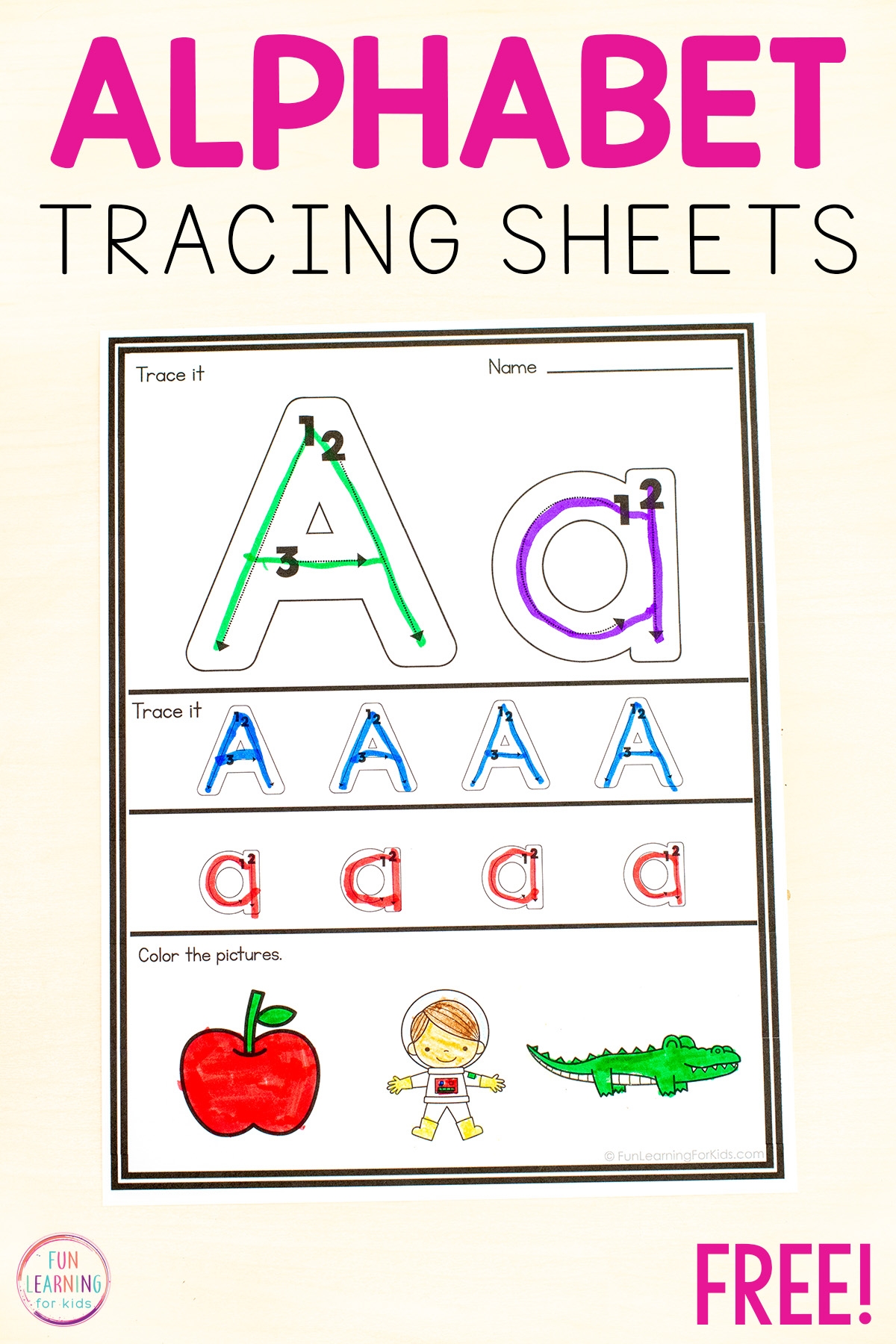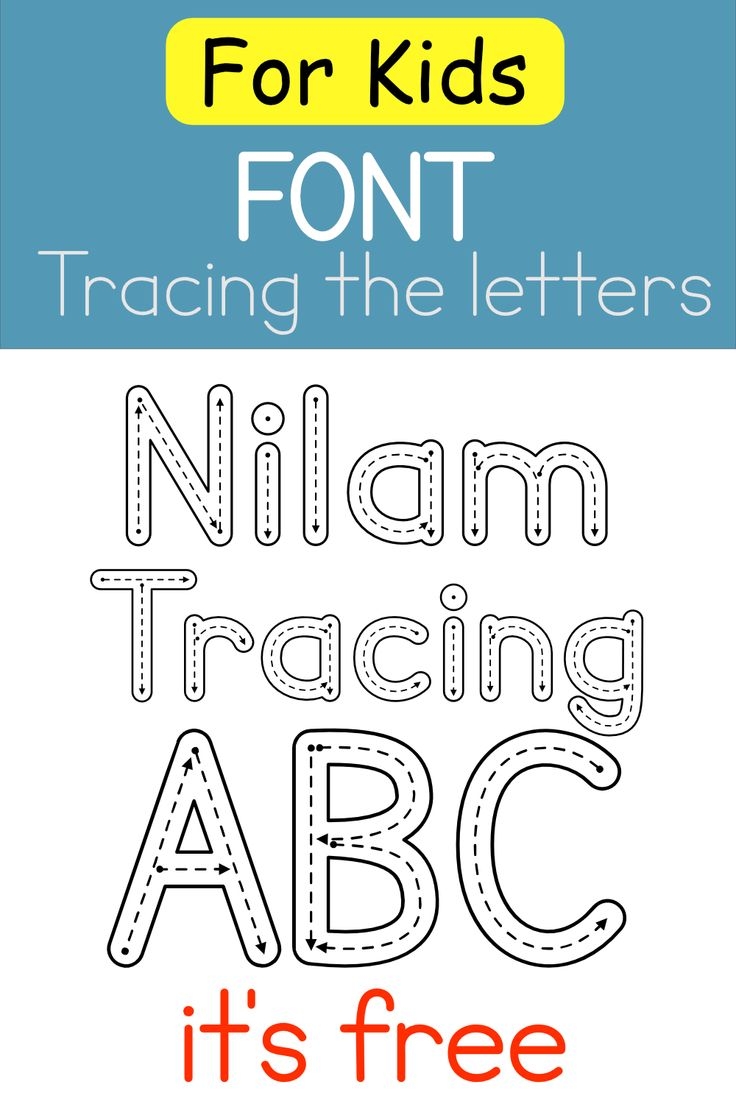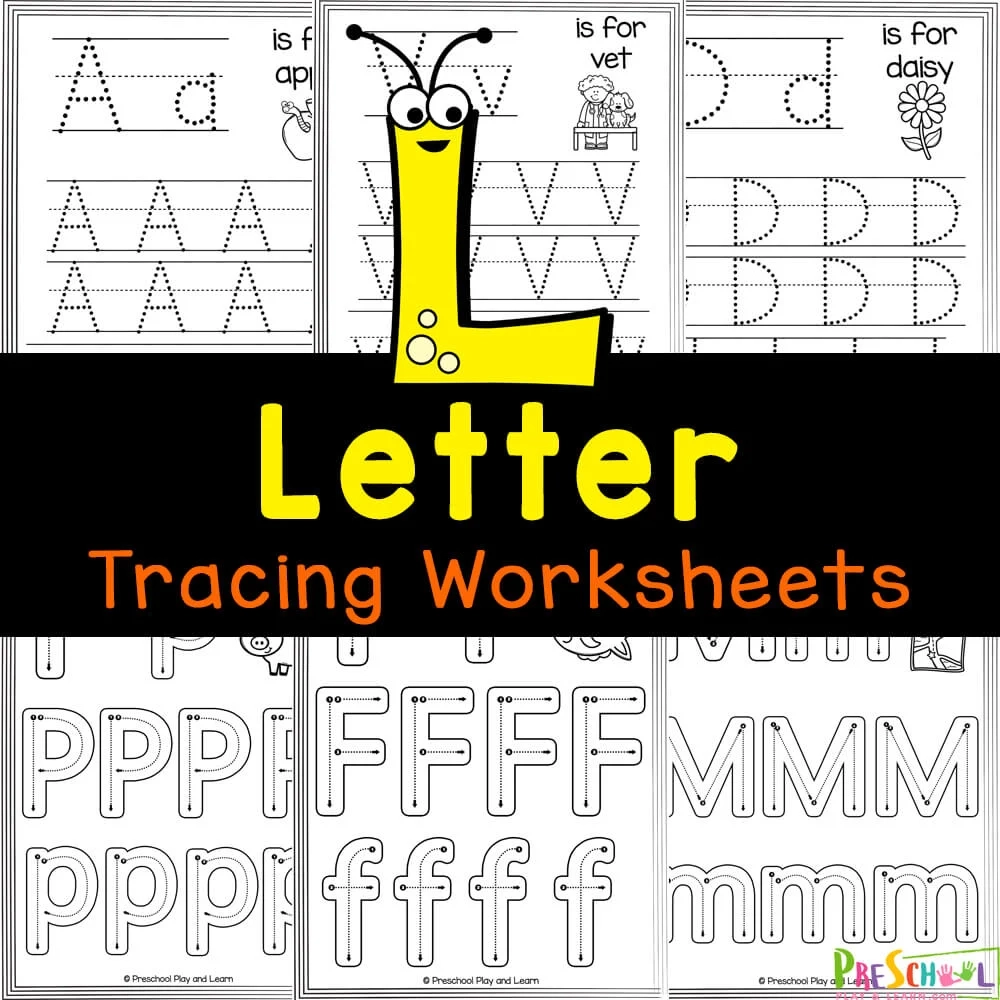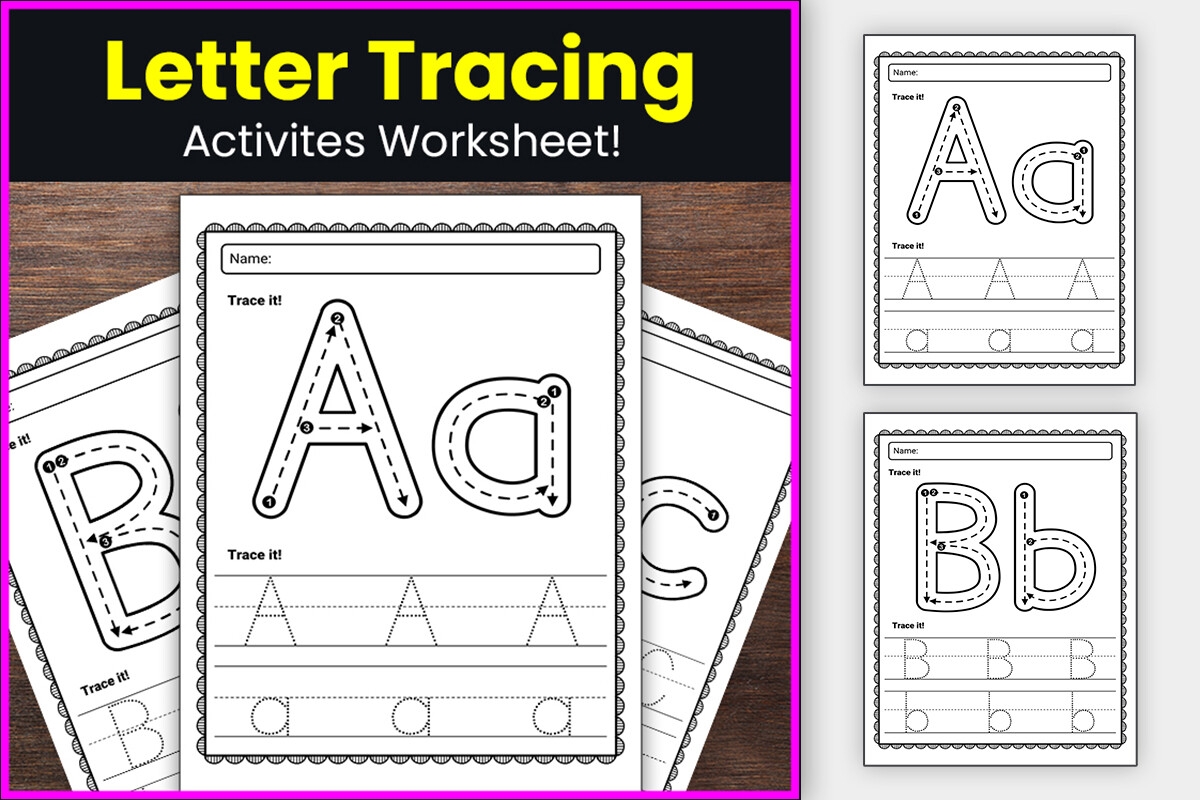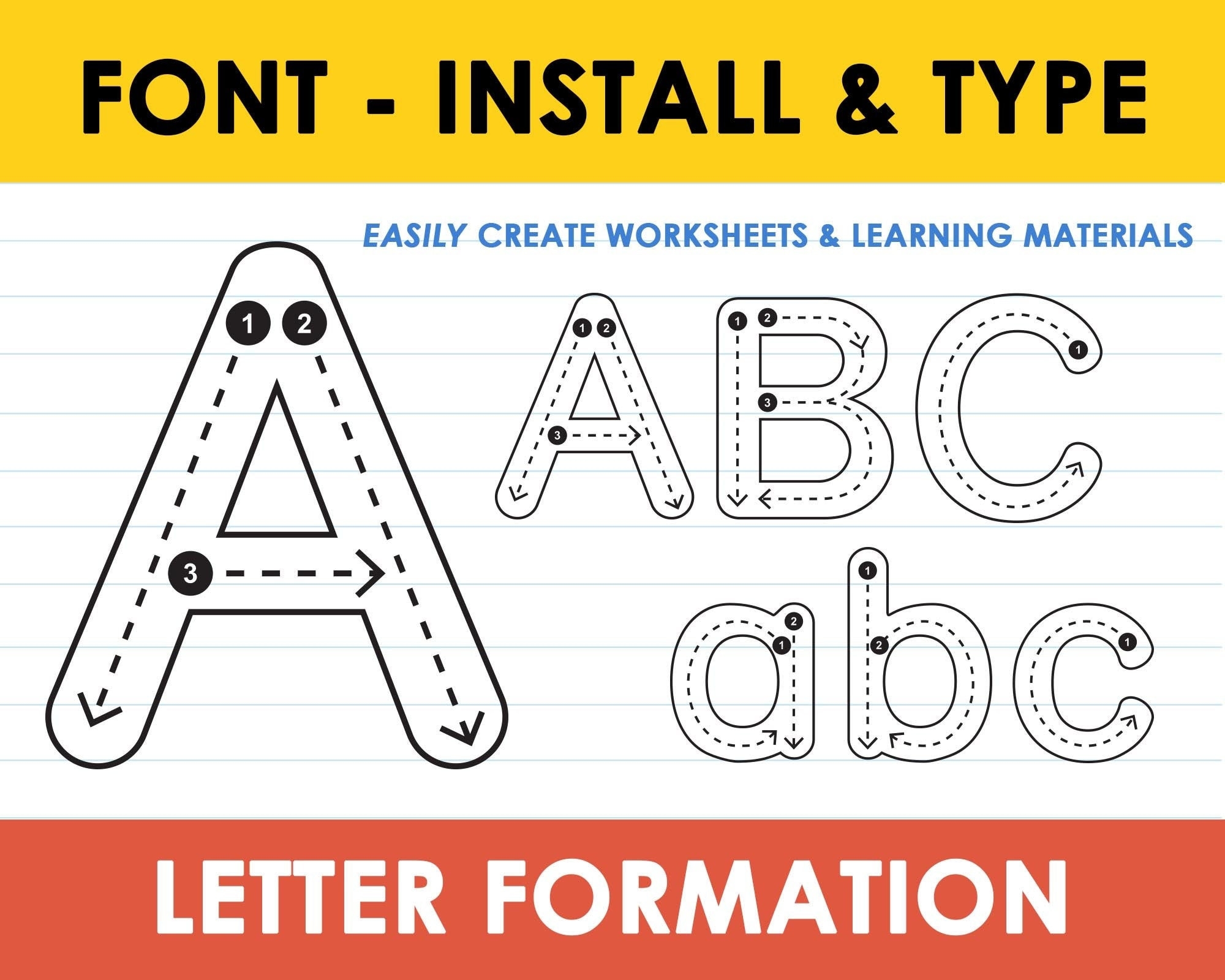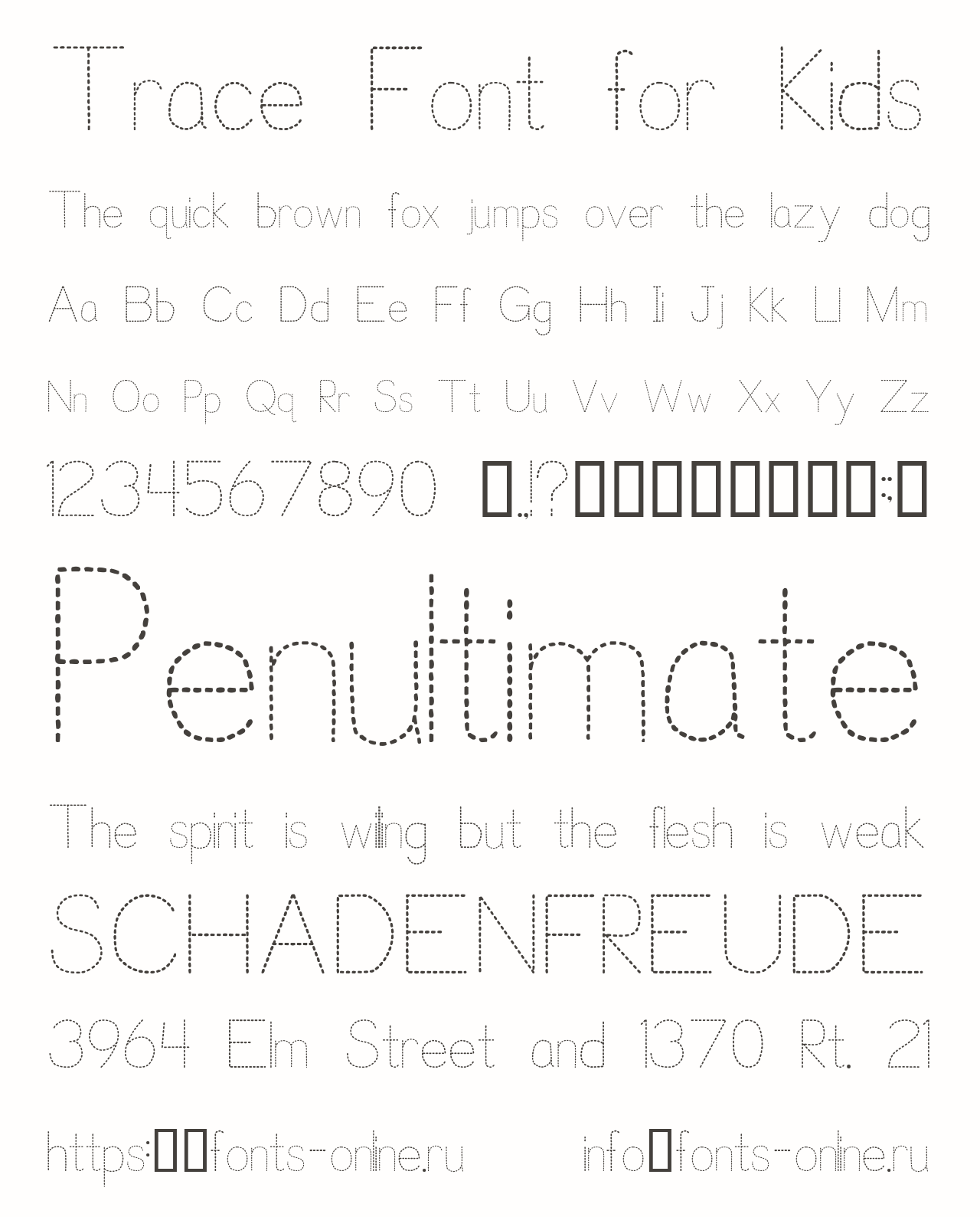
Tracing Font For Preschool
Learning to write is an exciting journey for preschoolers. One effective way to help them develop their writing skills is through tracing activities. Tracing fonts designed for young learners can make this process enjoyable and engaging.
Tracing fonts for preschool are often colorful and playful, capturing children’s attention. They usually feature dotted lines that kids can follow, allowing them to practice writing letters and numbers in a fun way.
Incorporating tracing activities into daily routines can enhance fine motor skills. As children trace letters, they strengthen their hand-eye coordination, which is essential for future writing tasks.
Parents and educators can find various resources online offering free tracing worksheets. These materials often include themed activities that align with children’s interests, making learning more relatable and enjoyable.
Encouraging regular practice with tracing fonts can lead to significant improvements in a child’s writing abilities. The more they trace, the more confident they become in their skills, setting a solid foundation for future learning.
Embracing tracing fonts for preschoolers is a fantastic way to support early literacy. With consistent practice, children will not only learn to write but also develop a love for learning that lasts a lifetime.